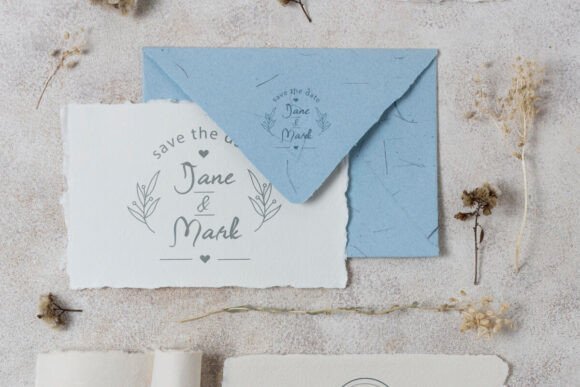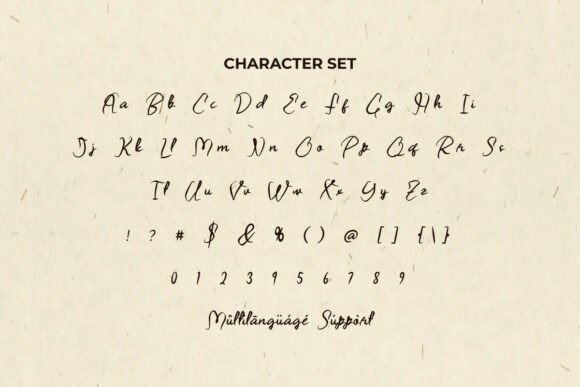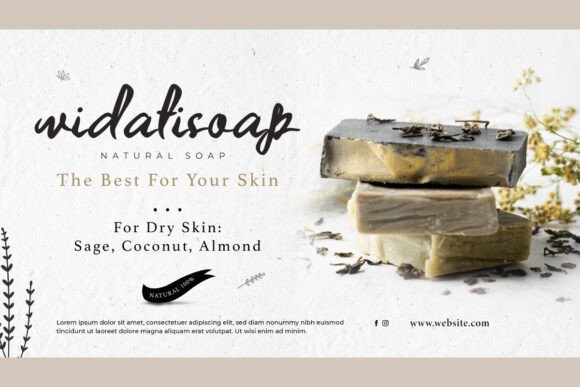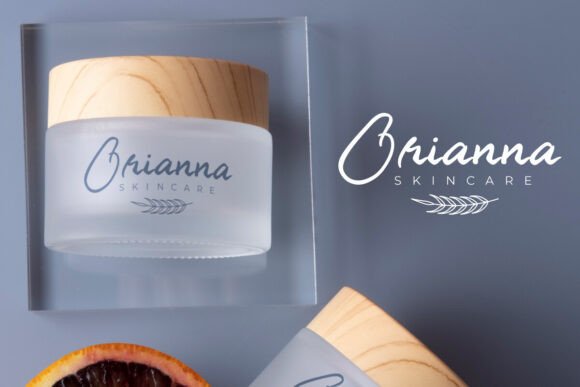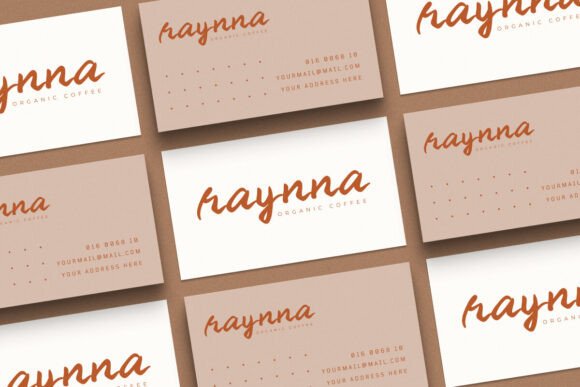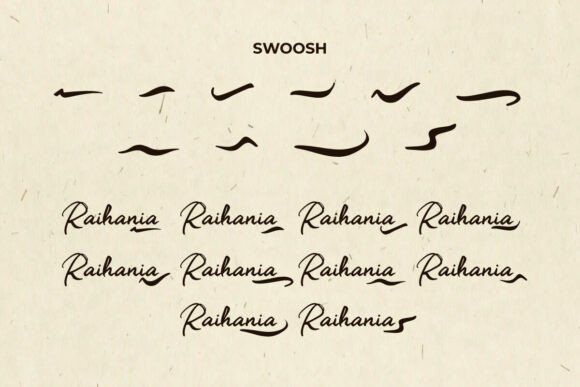
Introduction to Raihania Font
Have you ever been in the middle of a creative project, staring at a blank canvas, searching for the perfect font to bring your design to life? It’s that moment of frustration and excitement when the right font can make all the difference. For designers, the search for the perfect font is a crucial part of the creative process. That’s where the Raihania Font comes in – a beautiful, high-quality design resource that can elevate your work to the next level.
With its stunning swooshes and precise spacing, the Raihania Font is the perfect addition to any creative project. Whether you’re designing a brand logo, a brochure, or a website, this font is sure to make a lasting impression. And the best part? It’s available for free download, complete with a transparent background, making it easy to use in any design application.
As a valuable resource for designers, the Raihania Font offers a wide range of possibilities for creative expression. From stylish typography to eye-catching graphics, this font is the perfect tool for bringing your vision to life.
Key Features of Raihania Font
- High-quality design resource perfect for creative projects, offering a unique and elegant style.
- Features a large character set, including Latin, Cyrillic, and Greek alphabets, making it suitable for multilingual designs.
Honest Review: Raihania Font
As a designer, I’ve had the chance to explore various fonts for my creative projects, and the Raihania Font has caught my attention. I decided to dive deeper and see if it’s a valuable design resource.
First impressions are great – the font has a unique, elegant design that can be perfect for various applications, from headings to body text. ✨ The high-quality design is evident, making it a great choice for any creative project.
- Unique and elegant design
- High-quality design suitable for various applications
However, I noticed a few limitations – the font family is quite limited, with only a few weights and styles to choose from. ⚠️ This might be a drawback for designers who prefer a wide range of options.
Overall, I’m impressed with the Raihania Font – it’s a solid design resource that can be a great addition to any designer’s toolkit. With a bit more development, I believe it could be a top-notch choice for designers worldwide.
Tips for Getting the Most Out of Raihania Font
For optimal results, use the Raihania Font in conjunction with other high-quality design resources, such as images and graphics. Experiment with different font sizes, colors, and arrangements to find the perfect combination for your design. Take advantage of the font’s transparent background feature to create visually appealing designs.
The Raihania Font is ideal for various creative projects, including social media graphics, presentations, brochures, logos, and typography-based designs. Its high-quality design and transparent background feature make it a valuable design resource for professionals and hobbyists alike.